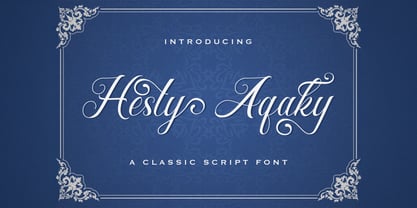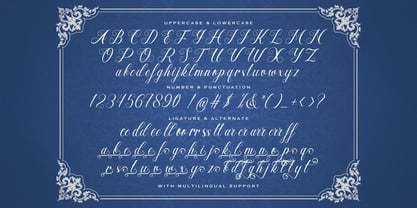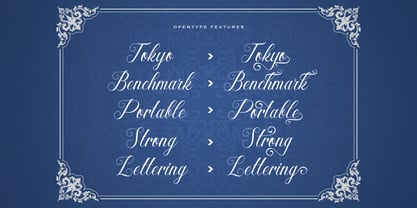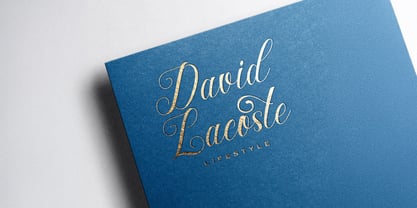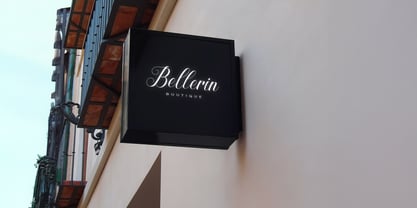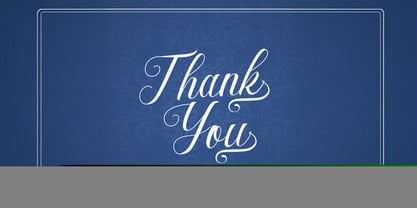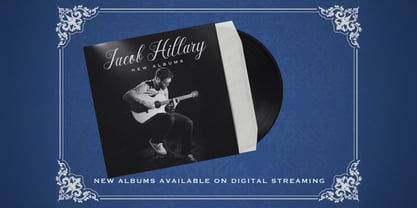
The Hesty Aqaky Font Family was designed by Virgiawan Listanto and published by Stringlabs Creative Studio. Hesty Aqaky contains 1 styles. More about this family
Hesty Aqaky is a contemporary modern script font that combines elegance with a fresh, dynamic flair. With its smooth, flowing lines and refined strokes, this font is perfect for creating sophisticated yet approachable designs.